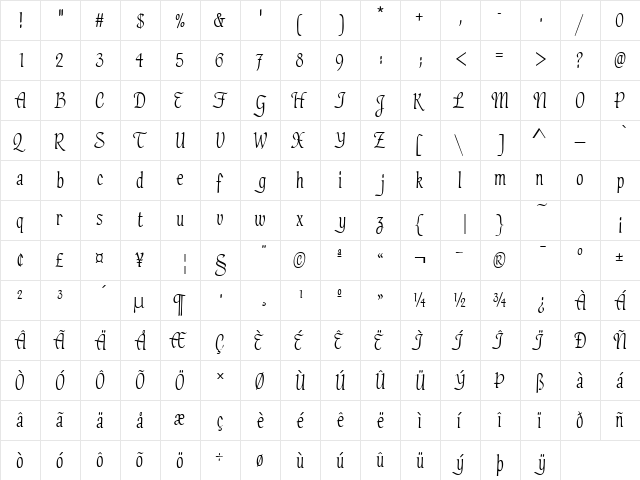
ElicitSSK Regular
Design Context for ElicitSSK Typeface
ElicitSSK is a composed and adaptable typeface that performs quietly and consistently across a wide range of design contexts.